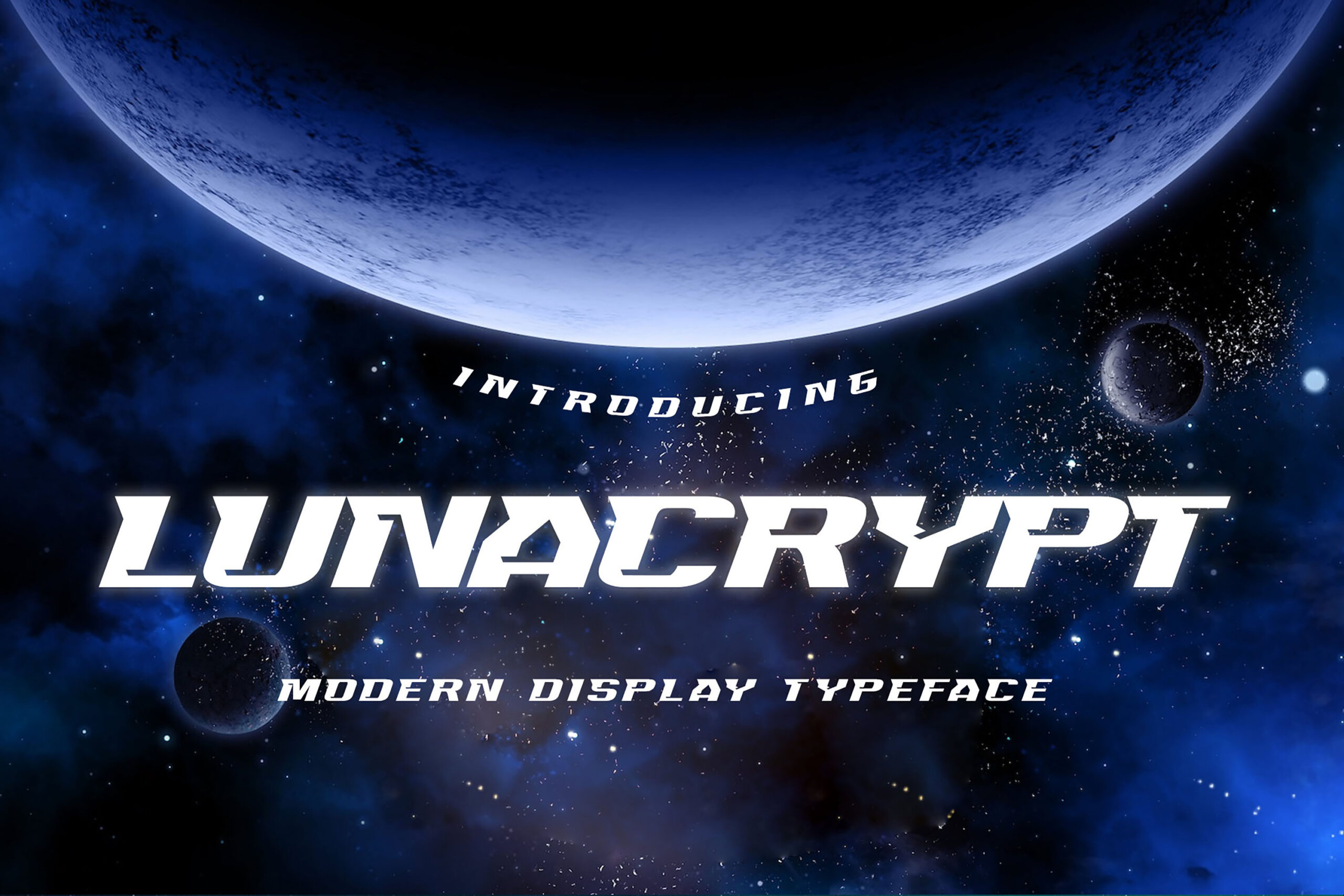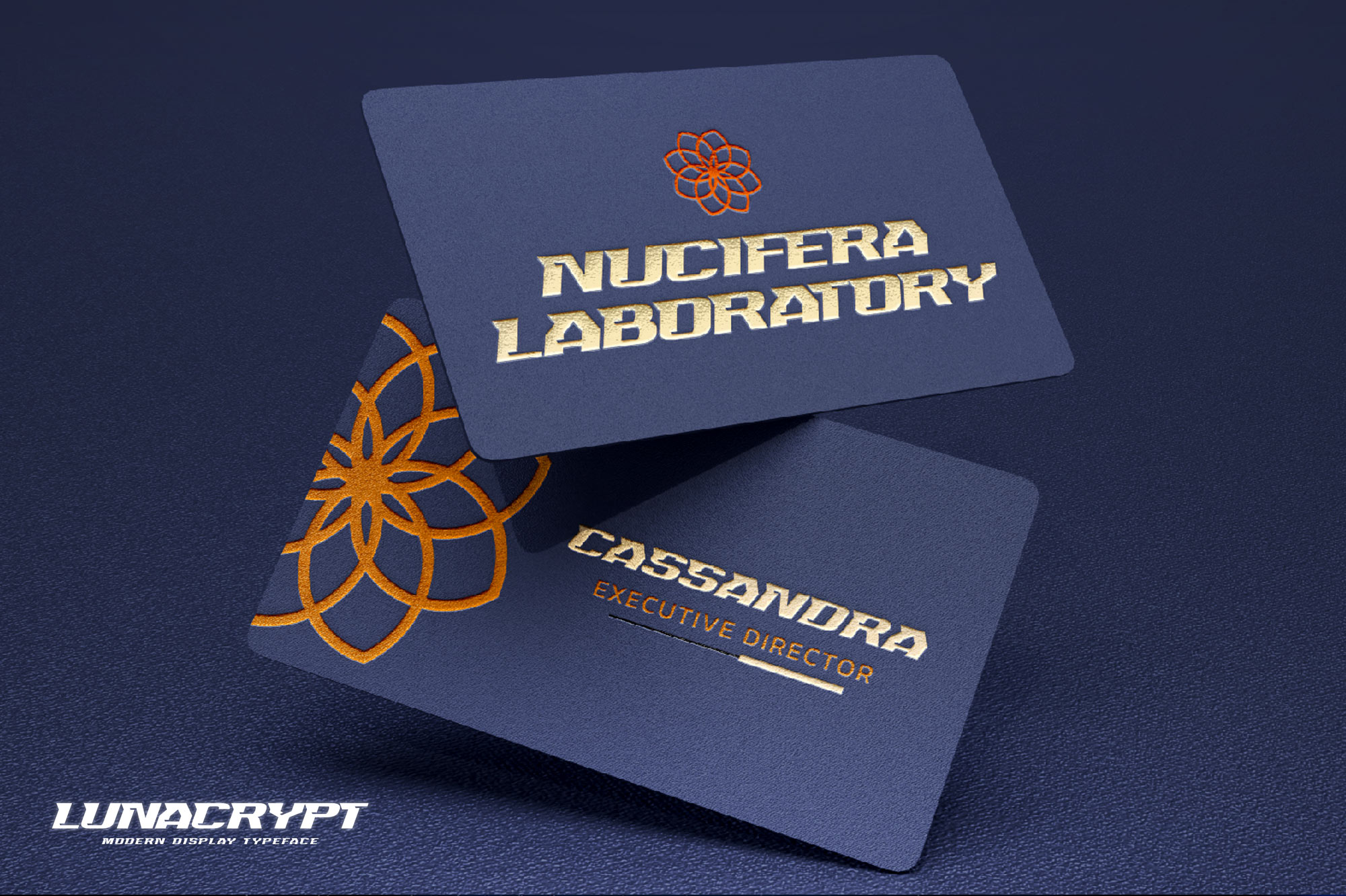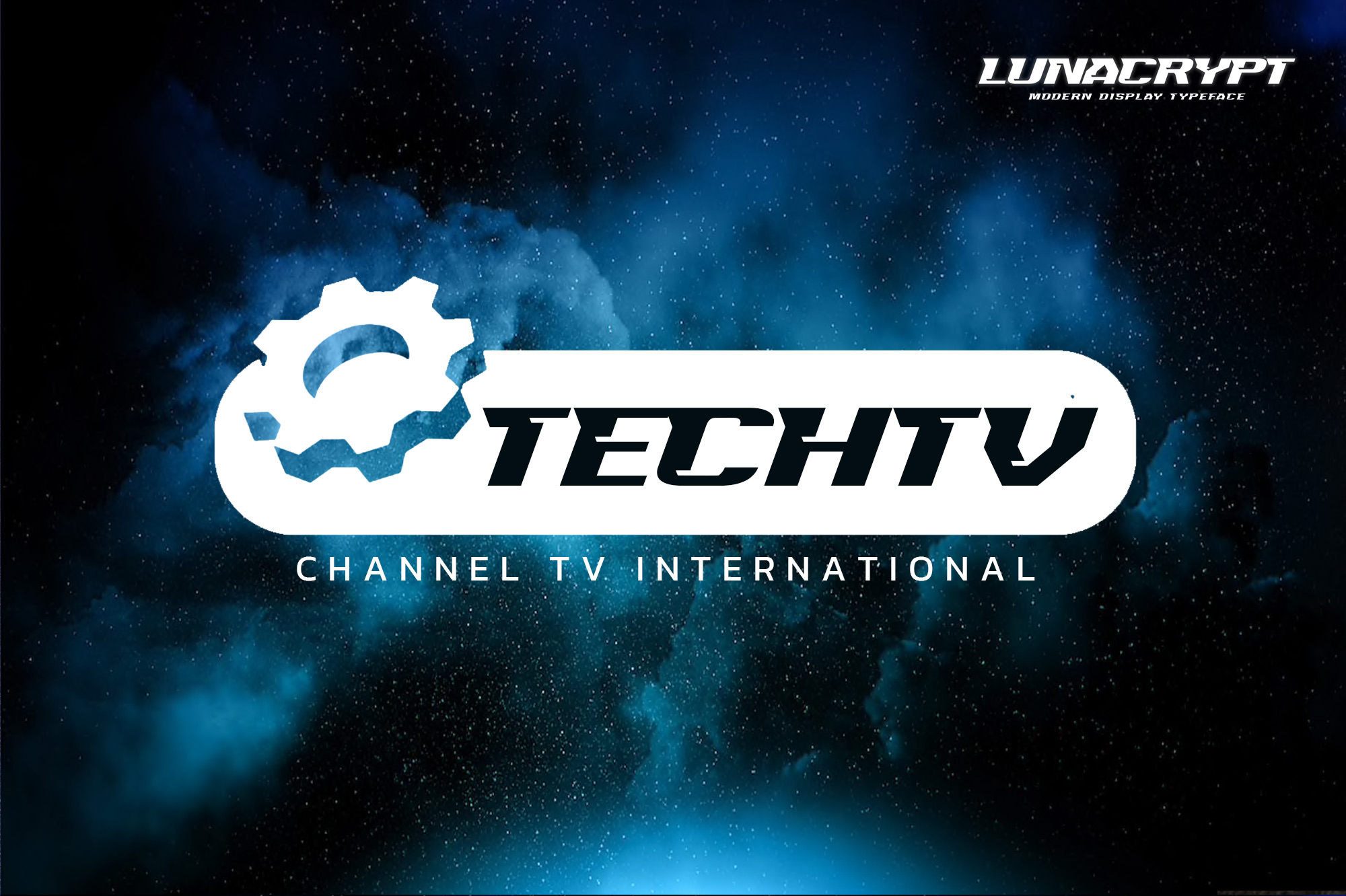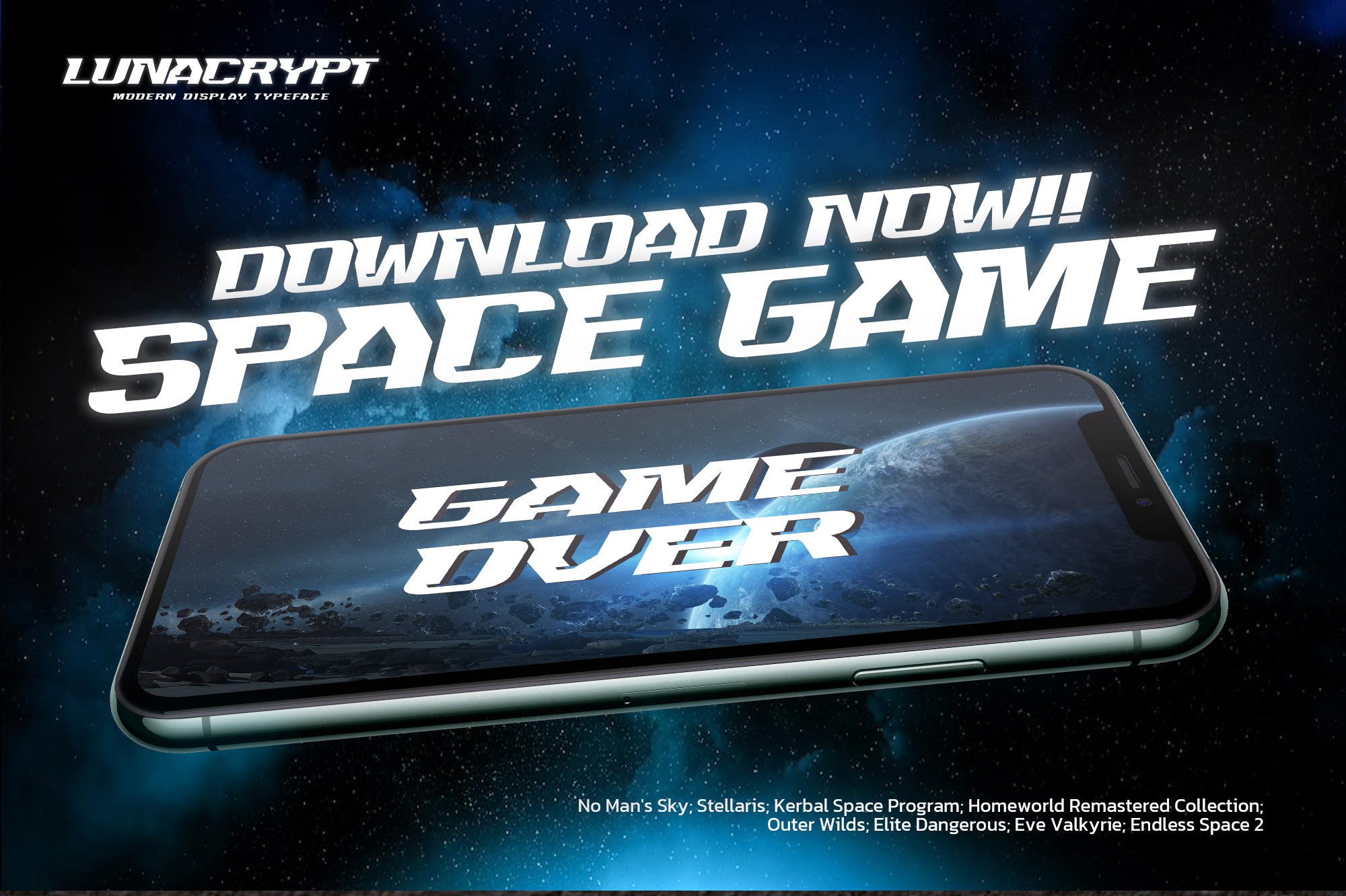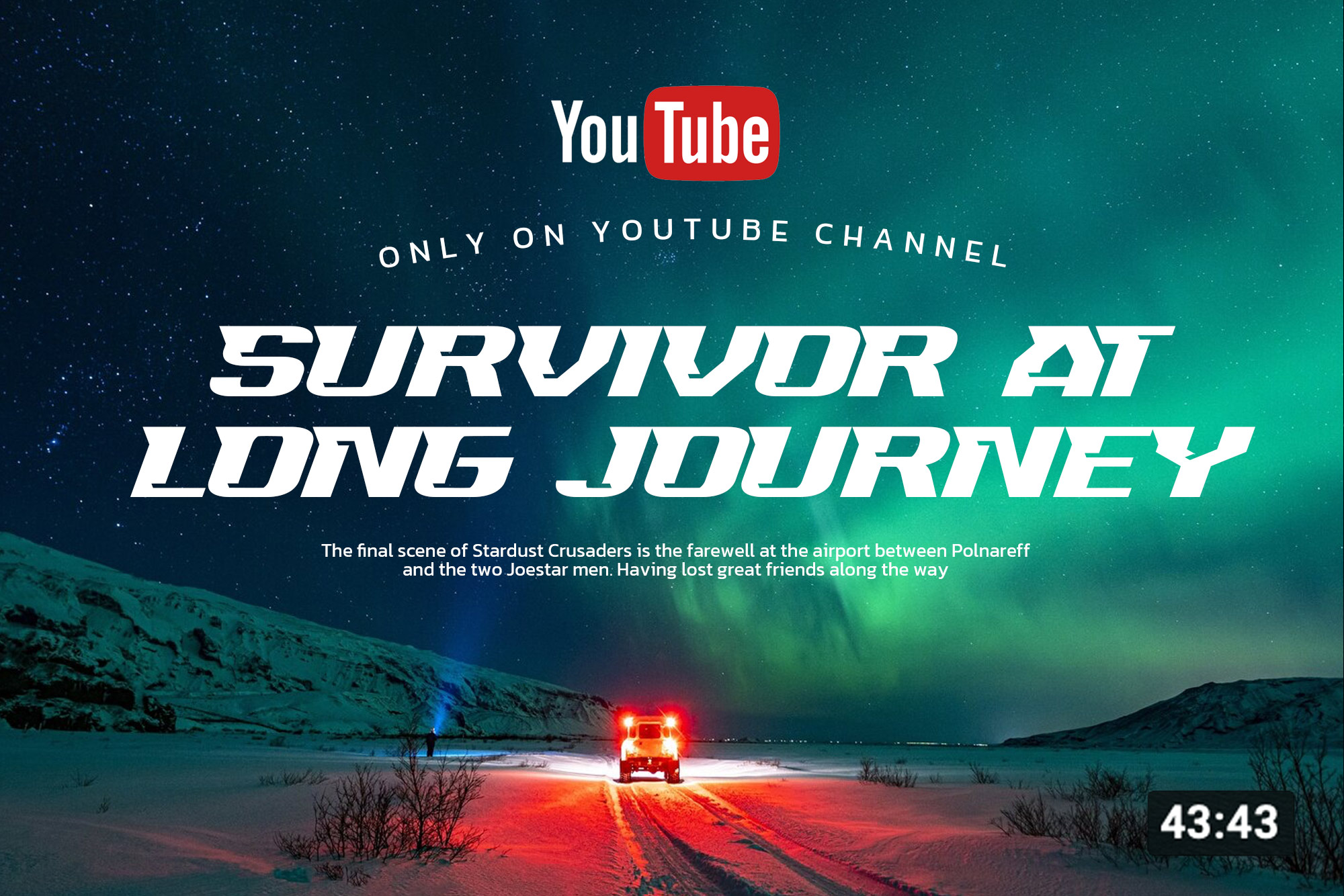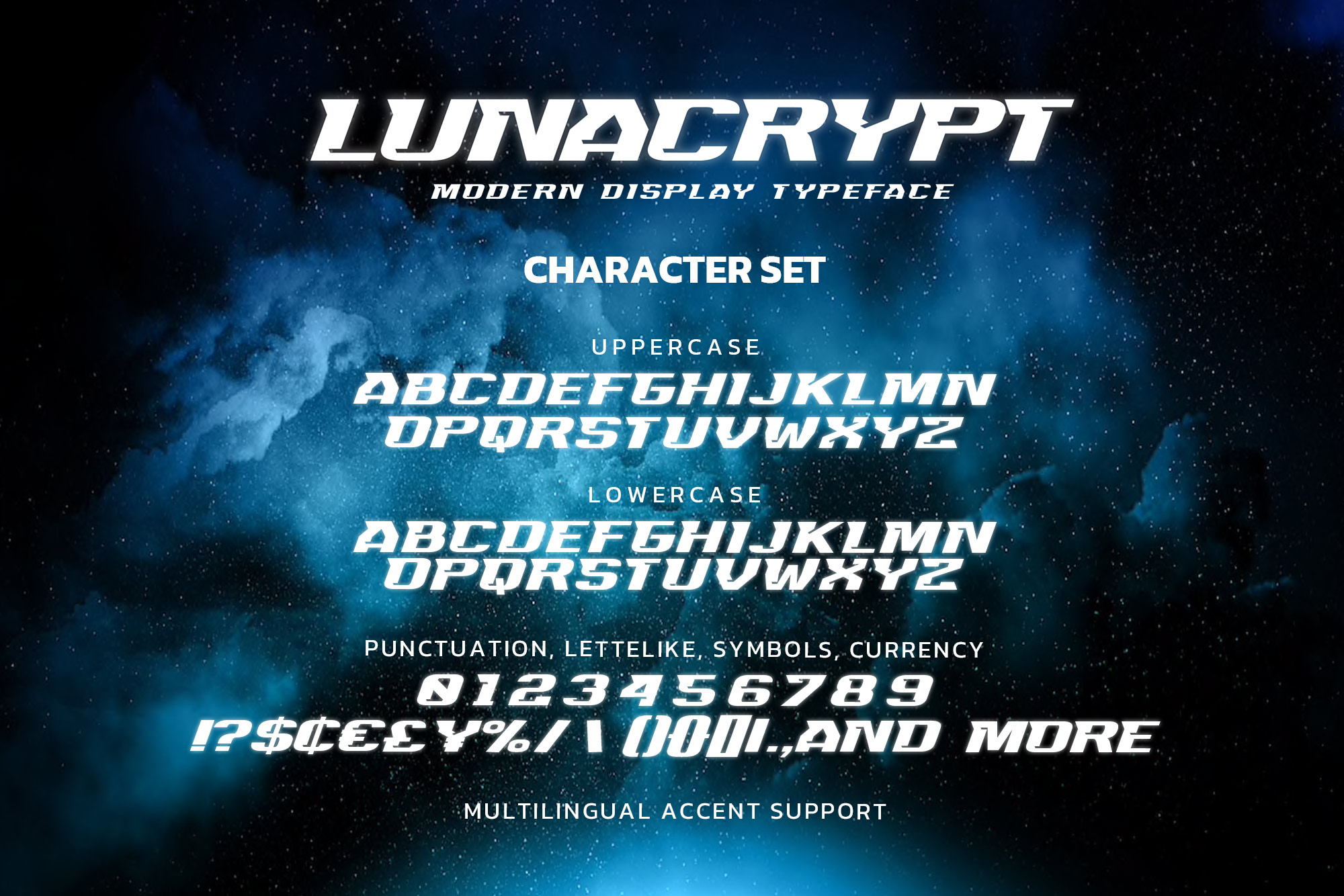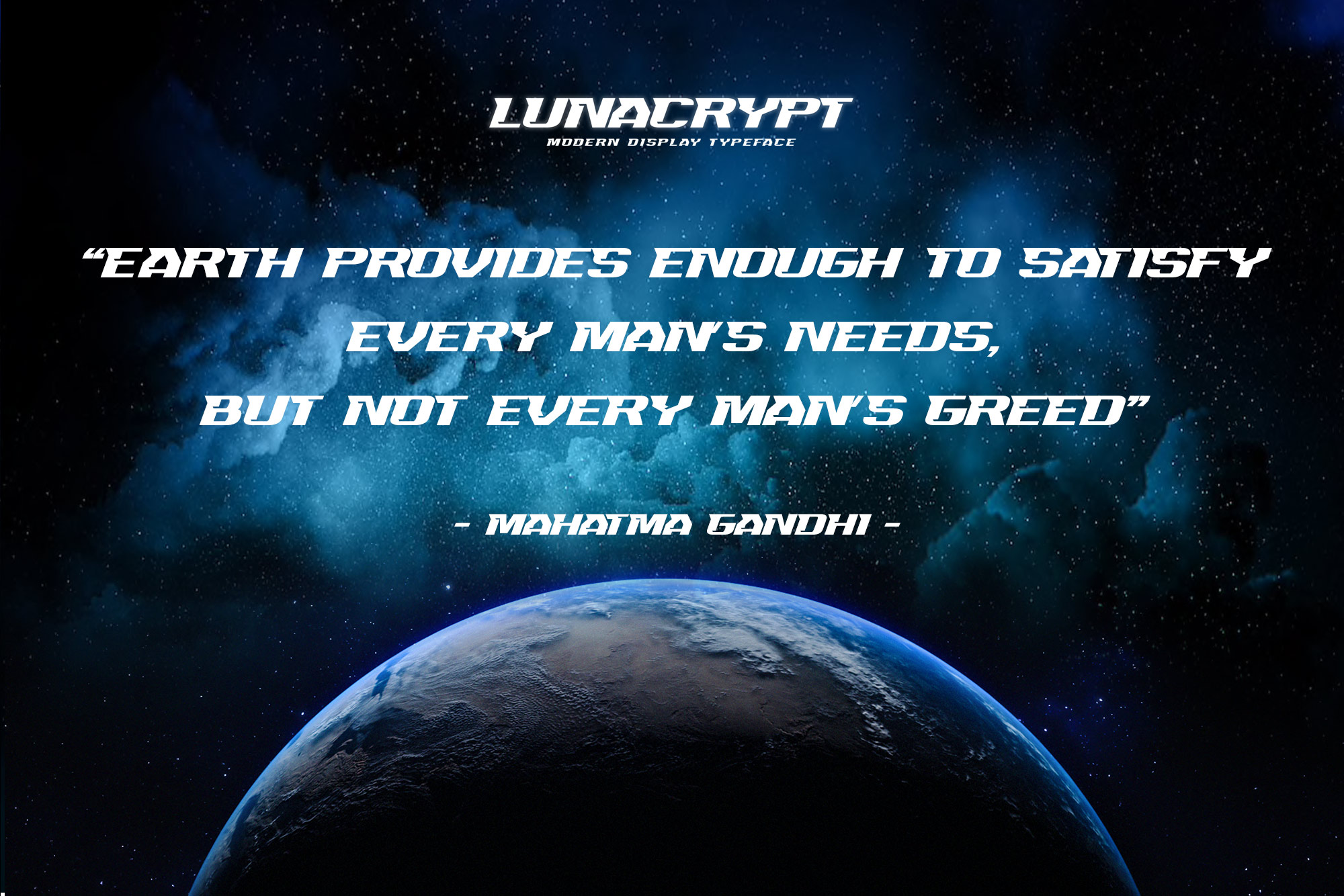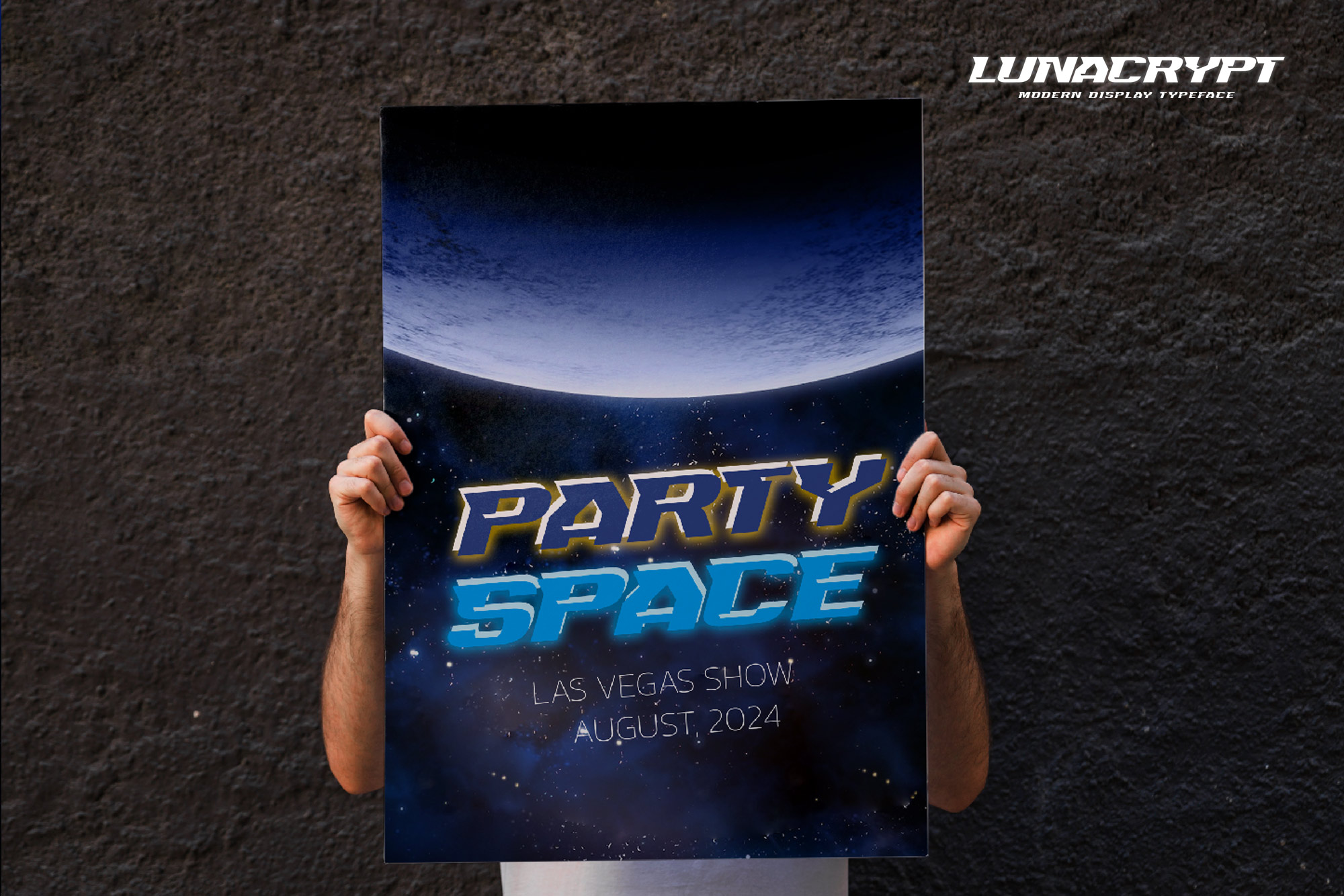
LUNACRYPT – Modern Display Typeface , Introducing the Neon Sci-fi Futuristic style and dramatic movement that is written casually and quickly.
The best for labels, poster, project designs look modern, authentic and unique. It’s perfect for labels, quotes, posters, DIY projects, branding, packaging, greeting cards, websites, photography overlays, signs, scrapbooking, tags and so much more! That is why LUNACRYPT has a textured, and strong characteristic more natural look.